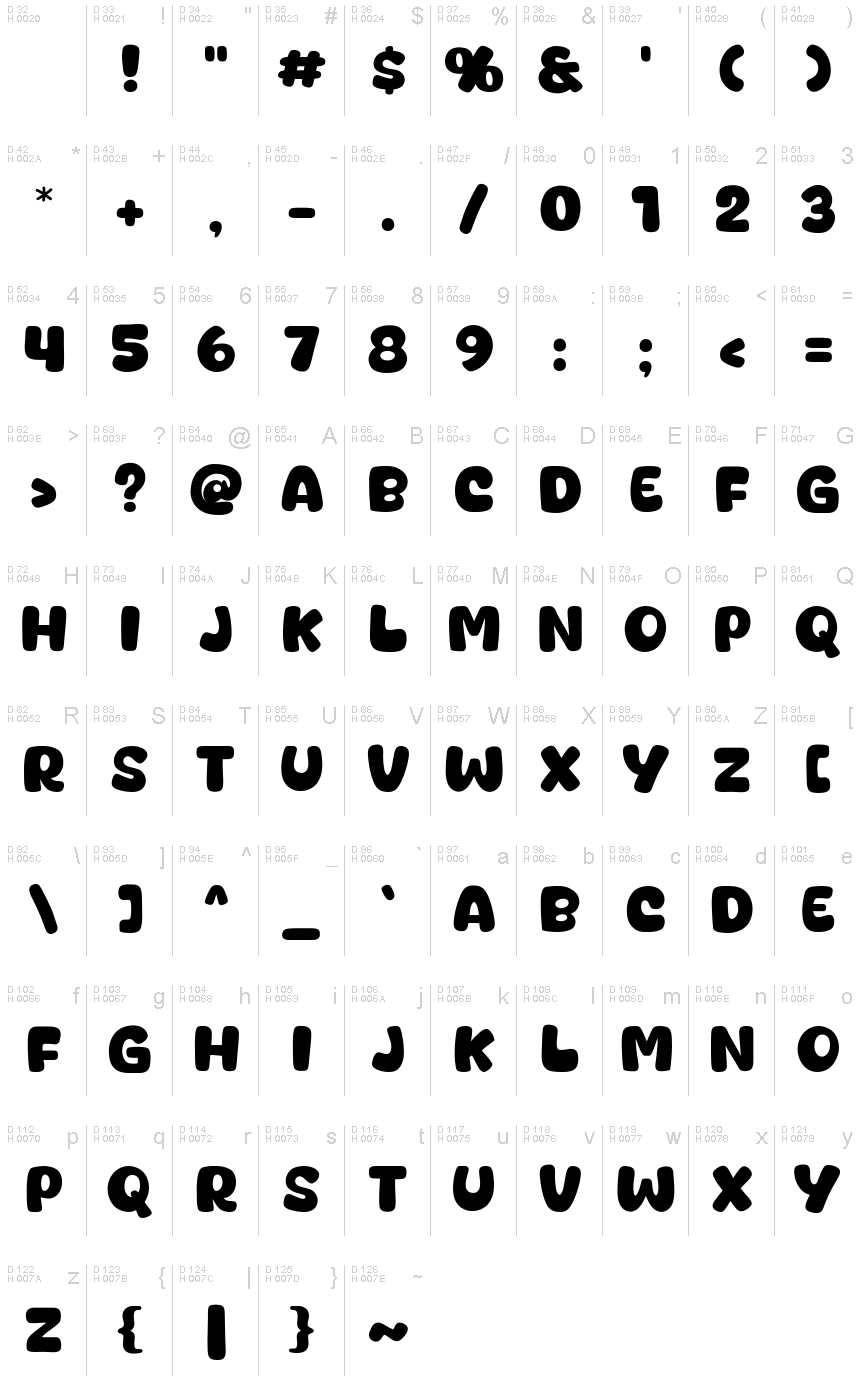
Juicy Fills
Juicy Fills, a captivating display font crafted by the talented designer Khurasan, exudes an irresistible sense of whimsy and playfulness. With its bold, cartoon-inspired strokes and a delightfully filled-in aesthetic, this font emanates a vibrant, eye-catching appeal that instantly grabs attention. The confident, impactful letterforms convey a playful, lighthearted mood, making Juicy Fills an ideal choice for a wide range of design projects that require a touch of fun and personality.
Juicy Fills' versatility shines through its ability to elevate various design applications, from eye-catching headlines and inviting social media graphics to engaging branding elements and captivating packaging designs. Its bold, expressive nature lends itself particularly well to projects that aim to capture a lively, energetic atmosphere, such as children's books, toy packaging, or promotional materials for entertainment-focused businesses.